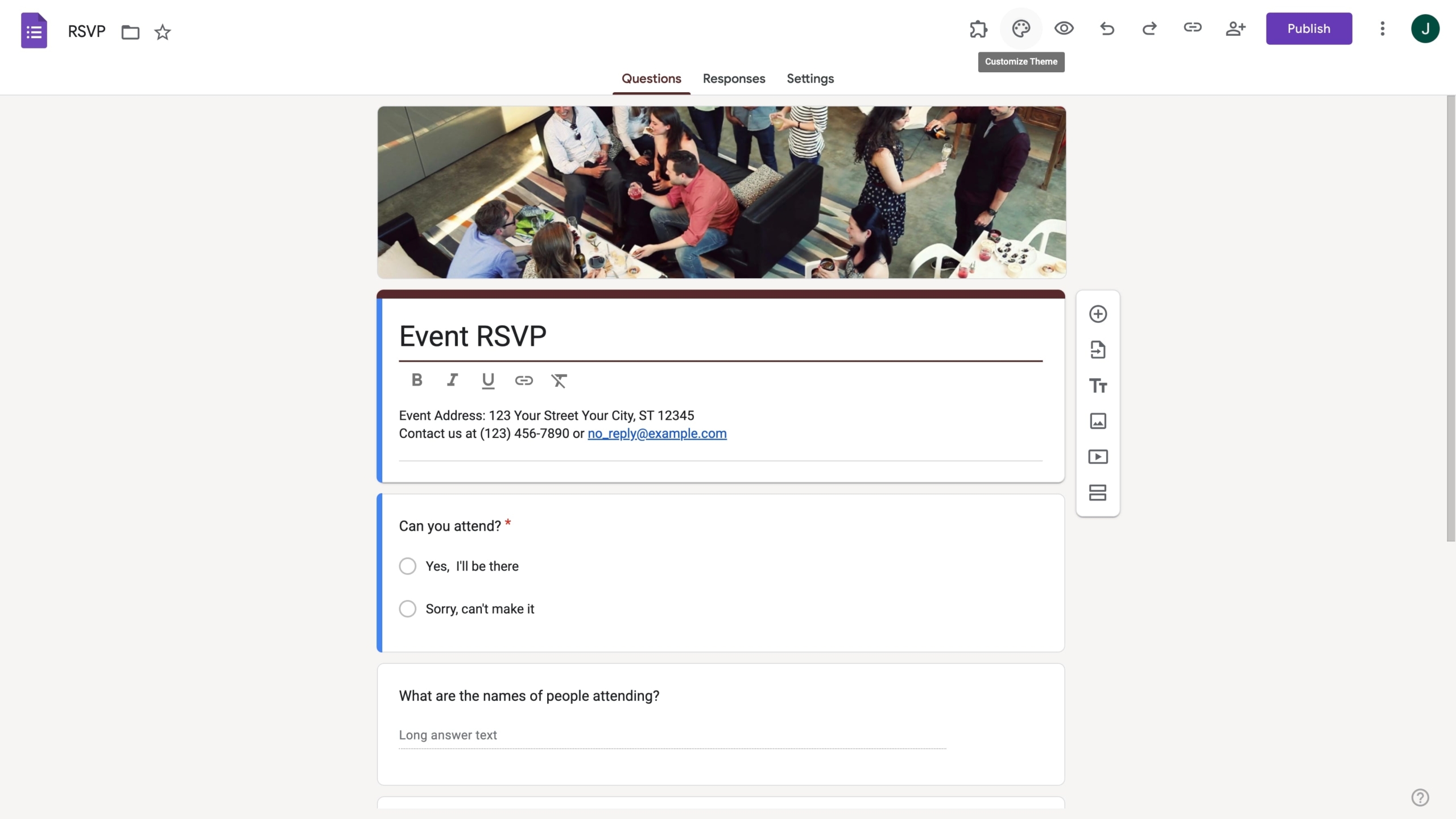
Google Forms is a simple tool. It was originally designed to be an add-on for Google Sheets, but in 2016, it graduated to become a standalone app.
It has incorporated new features over time, but they’ve provided limited functionality. Google has put more work into its prime offerings like Sheets and Docs than into tools like Forms.
So, while you can change the font size in Google Forms, don’t get too excited. But do read on — you’ll see that while your options are limited, there are some add-ons and one workaround that give you more options.
Changing fonts natively
Google Forms offers a handful of options for customizing and designing your forms, but since this article focuses on fonts, we won’t go over those.
You’re a smart cookie. All the design settings are in one place, and you can poke around after you figure out the fonts.
To get to those settings, click on the painter’s palette icon in the upper right-hand corner.
Clicking on the palette icon on Google Forms
A menu of theme options will open up on the right side of the page. The font styles are at the bottom of the list. You’ll see that you have a whopping lot to go crazy with.
Screenshot of the list of form styles
Try not to lose your mind over the abundance of options. There’s a generic serif font and a generic sans-serif, which are nice enough. There’s also Playful, which is delightfully close to Comic Sans. And then there’s Decorative, which is impossible for anyone under the age of 20 to read.
Using an add-on
The best option you have to get more fonts is to use an add-on. Unfortunately, there’s only one available, and it removes Google Forms styling from the equation entirely.
The add-on is called Formfacade. It’s a paid tool designed to let you embed Google Forms into your web page with your own branding.
Formfacade is good enough for what it does, but it doesn’t actually give you any more features. It just sits on top of Google Forms and makes it look a little prettier.
You can install Formfacade from the Google Marketplace. Once it’s installed, you can access it from the Add-ons menu by clicking on the puzzle icon.
That will take you to the Formfacade website, where you can edit the design of your form. To change the font, click on the gear next to the form’s title.
Screenshot of the form title with a gear icon next to it
From the settings menu on the right, select the Fonts tab.
Screenshot of settings menu of Formfacade clicking on Fonts tab
If you absolutely have to use Google Forms, it’s probably your only solution. However, if you can talk your boss into paying for this add-on, you could probably talk them into the next solution.
Taking the best approach: Using a workaround
As mentioned in the very beginning, Google Forms is really simple. If you’ve read this far, then you’re probably not happy with the options available above. So what else can you do?
Sometimes the best option is to give up — not on creating forms, of course. Maybe it’s time to give up on Google Forms, though. The number of fonts are just the beginning of the tool’s limitations.
Jotform is a form tool without limitations. That’s not just an arrogant claim, either. Jotform has the most features of any form tool on the market. On top of that, anybody who’s clever enough to do so can actually add new widgets to JotForm.
But what about fonts? Jotform has dozens built right in. And we make it easy to choose them.
Screenshot of the font styles in Jotform Form Builder
What if you’re extra picky and can’t find anything you like in that list? You can inject CSS directly into your form and import fonts from anywhere. You can even control every aspect of your layout with our advanced Form Designer.